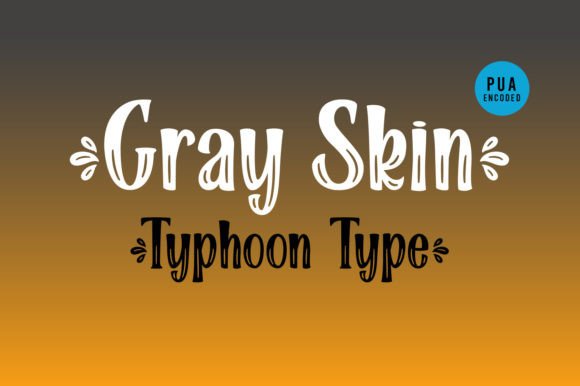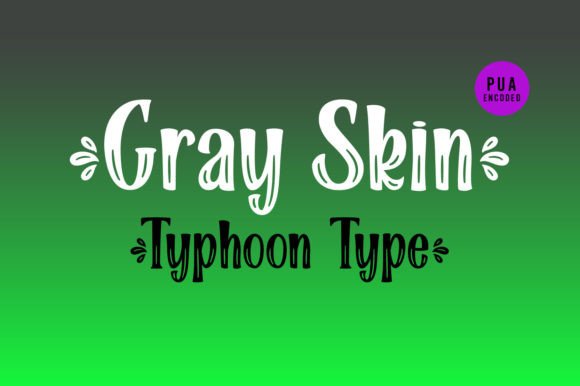
Discover the Versatility of Gray Skin Font: Elevate Your Designs with a Cool, Bouncy, and Interesting Display Font
In the world of typography, fonts play a crucial role in conveying messages, setting tones, and creating visual identities. For designers and crafters, finding the perfect font that can elevate their creations is a constant quest. If you’re on the lookout for a font that can add a touch of coolness, bounciness, and interest to your designs, look no further than the Gray Skin Font. This versatile display font is an incredible asset to any font library, capable of enhancing any creation, regardless of the topic or theme.
What Makes Gray Skin Font Stand Out?
Gray Skin Font is not just another addition to the vast sea of fonts available today. Its unique characteristics make it a standout choice for designers looking to infuse their projects with a fresh and dynamic feel. Here are some key features that set Gray Skin Font apart:
- Cool and Bouncy Aesthetic: The Gray Skin Font boasts a cool and bouncy aesthetic that can instantly add a layer of fun and energy to your designs. Its playful vibe makes it perfect for projects that require a youthful and vibrant approach.
- Versatility: One of the most significant advantages of Gray Skin Font is its versatility. It can be used across a wide range of projects, from digital content and advertising materials to packaging and editorial designs.
- Legibility: Despite its unique and playful style, Gray Skin Font does not compromise on legibility. It remains clear and readable, even at various sizes, making it an excellent choice for both display and body text.
- Unique Character: Each letter in the Gray Skin Font has been crafted with attention to detail, offering a unique character that can help your designs stand out in a crowded marketplace.
How to Use Gray Skin Font Effectively in Your Designs
To truly leverage the potential of Gray Skin Font, it’s essential to understand how to use it effectively in your designs. Here are some tips to get you started:
- Pair it with Neutrals: Gray Skin Font can be a bold statement, so pairing it with neutral fonts can help balance your design. Consider pairing it with sans-serifs or serifs for a harmonious look.
- Experiment with Sizes: Don’t be afraid to experiment with different sizes. Using Gray Skin Font in various sizes can add depth and interest to your designs.
- Play with Colors: While the name suggests a gray tone, Gray Skin Font can be used with a wide range of colors. Experiment with different palettes to find the perfect match for your brand or project.
- Consider the Context: Always consider the context in which your design will be used. Gray Skin Font’s playful nature makes it suitable for creative and youthful brands, but it might not be the best fit for more formal or traditional projects.
Why Designers and Crafters Love Gray Skin Font
Gray Skin Font has quickly become a favorite among designers and crafters for several reasons:
- Easy to Use: Despite its professional look, Gray Skin Font is incredibly easy to use, even for those who are new to design.
- High-Quality: The font is crafted with high-quality in mind, ensuring it looks great in both print and digital formats.
| Author | Typhoon Type™ – Suthi Srisopha |
Gray Skin Font is more than just a display font; it’s a tool that can transform your designs, adding a cool, bouncy, and interesting touch that captivates audiences. Its versatility, unique character, and ease of use make it an invaluable asset to any designer or crafter looking to elevate their creations. Whether you’re working on a digital project, a print design, or anything in between, Gray Skin Font is sure to become a go-to in your font library.